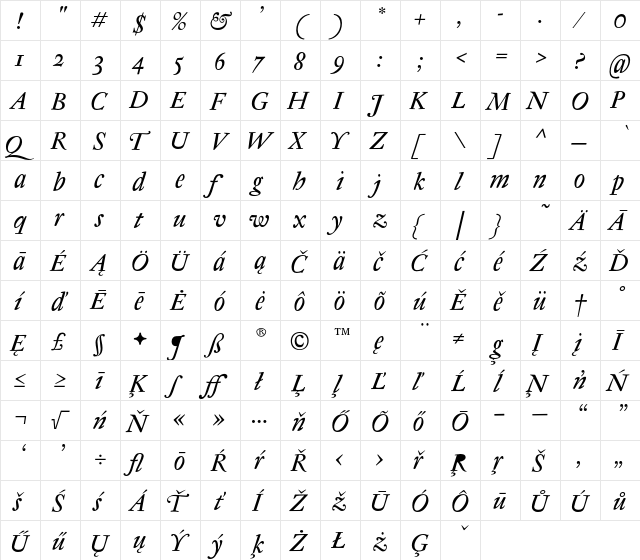
Antique Regent CE Italic
Design Context for Antique Regent CE Typeface
Antique Regent CE has the warm character of retro typography — evoking diners, record sleeves, and the golden age of print advertising. The dynamic lean of this cut emphasises speed and emphasis in any layout.
Font Pairing: Combine Antique Regent CE with a simple slab or neutral sans — period-accurate companions reinforce the vintage feel without competing for attention.
Pro Tip: Lean into Antique Regent CE's period character by pairing it with aged paper textures, muted colour palettes, and vintage illustration styles.